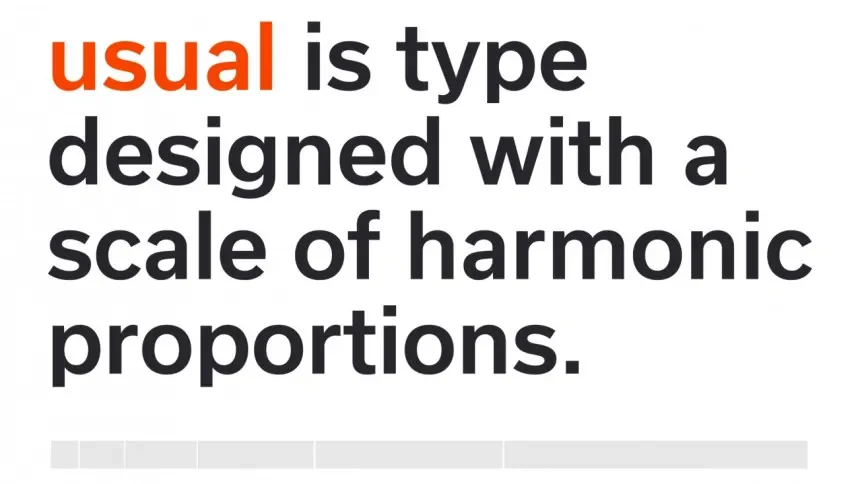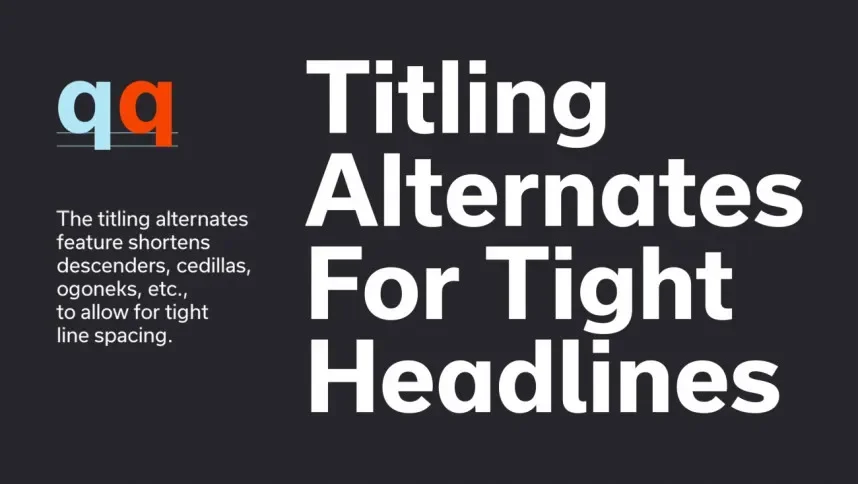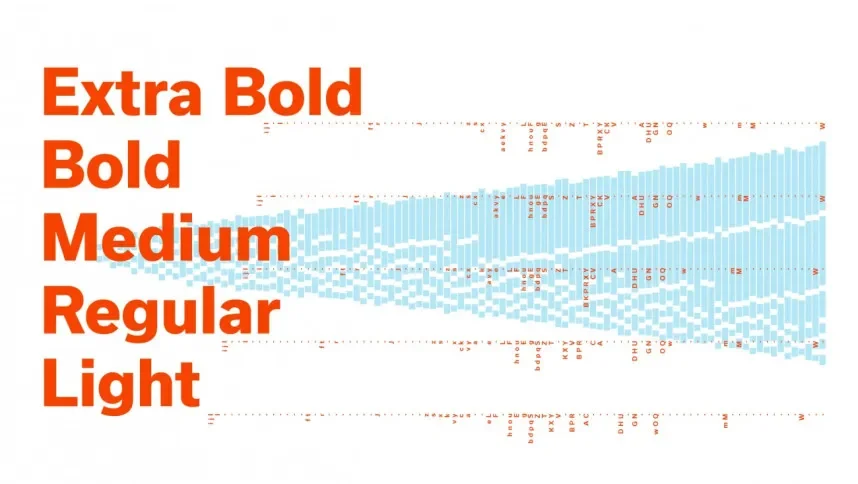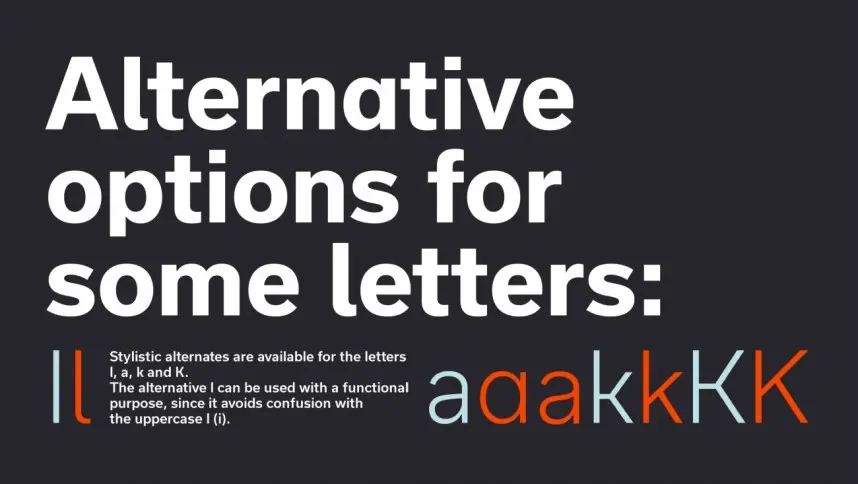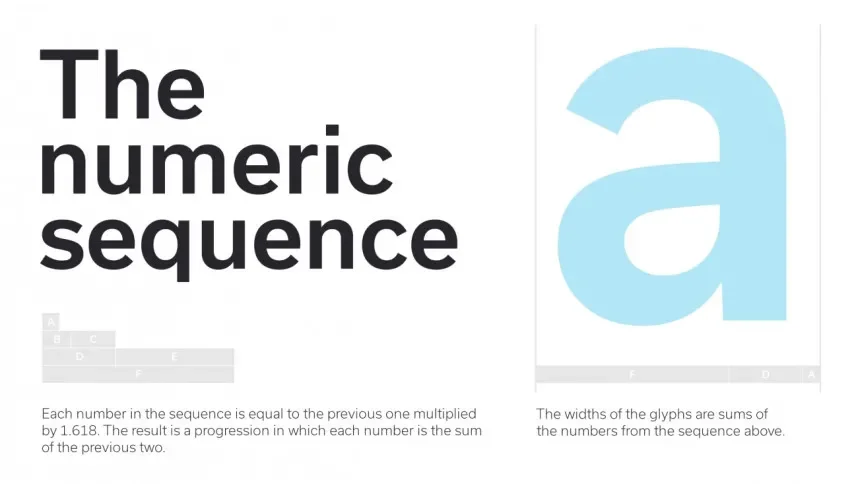
Usual Font focuses on solving consistency problems in projects that require simple, readable text across multiple platforms. Designers often need a neutral sans-serif that does not distract from content.
Usual Font is a sans-serif typeface with balanced proportions, smooth curves, and even stroke weight. The letterforms maintain open counters and a stable x-height, supporting legibility in both print and digital environments.